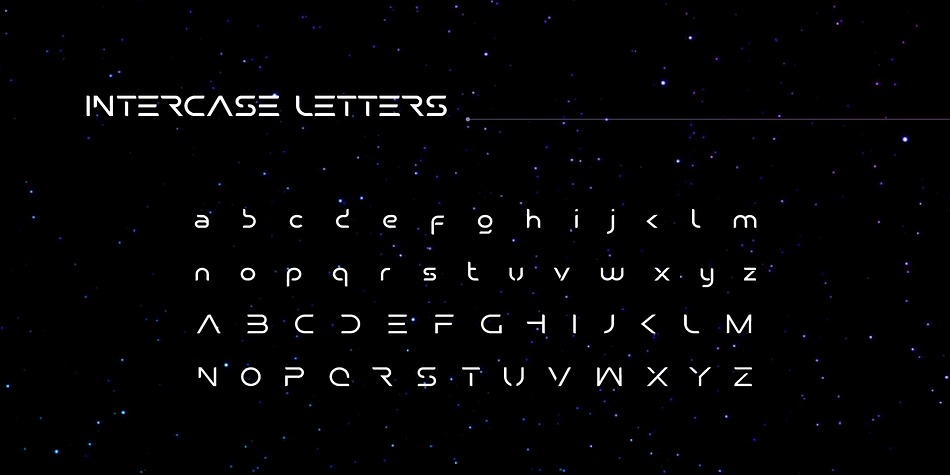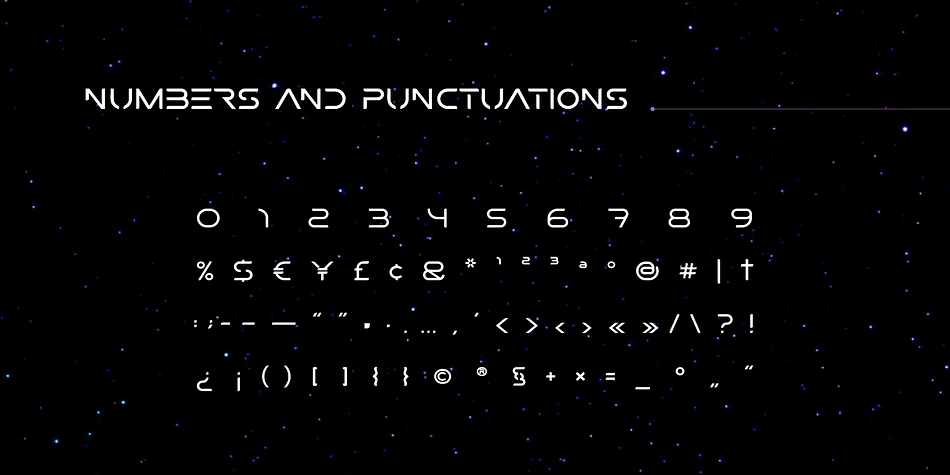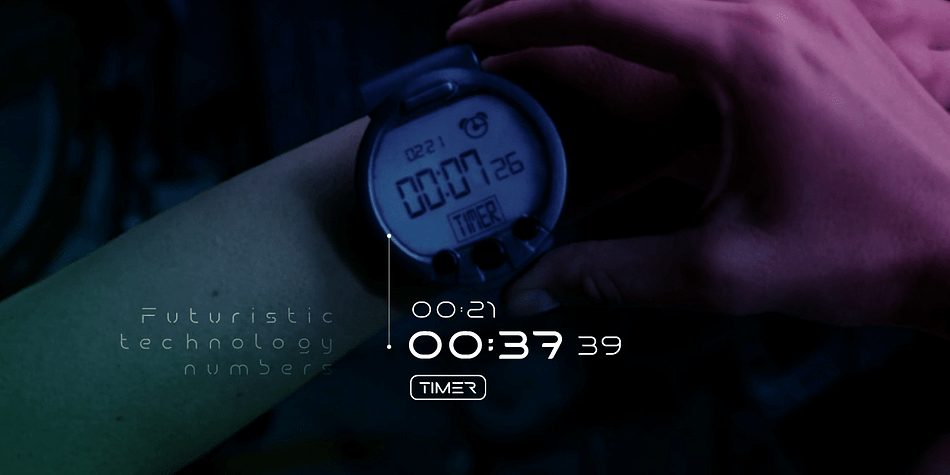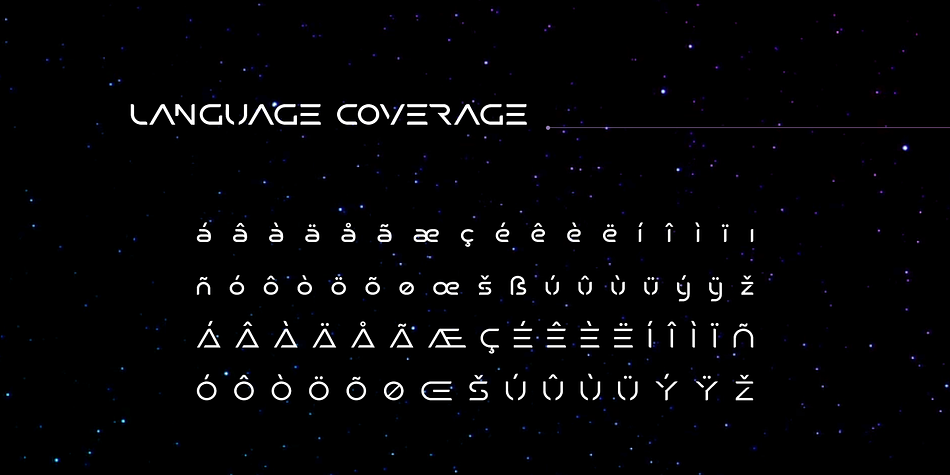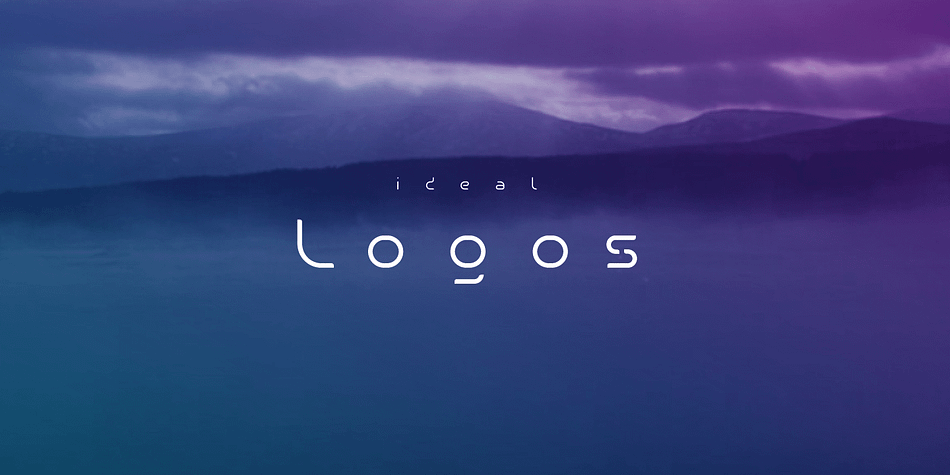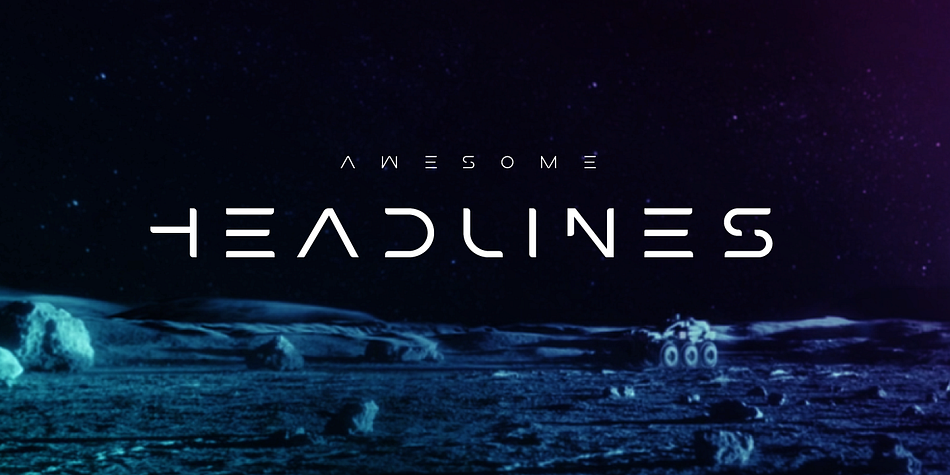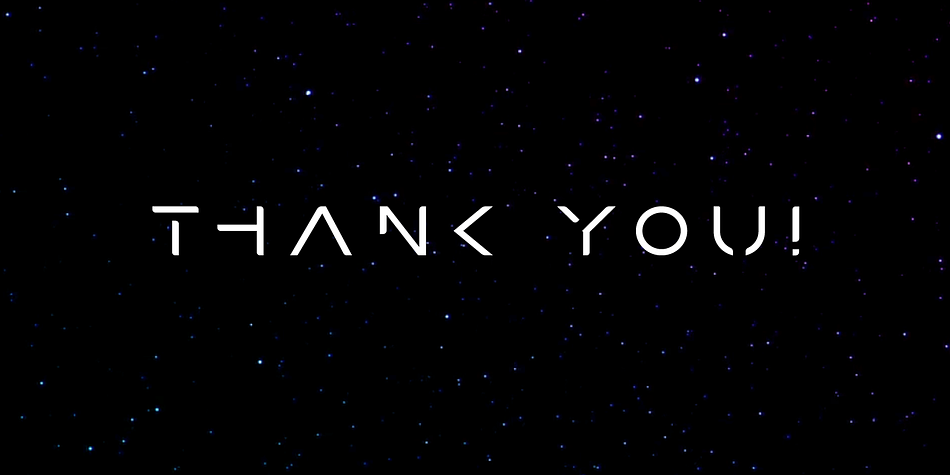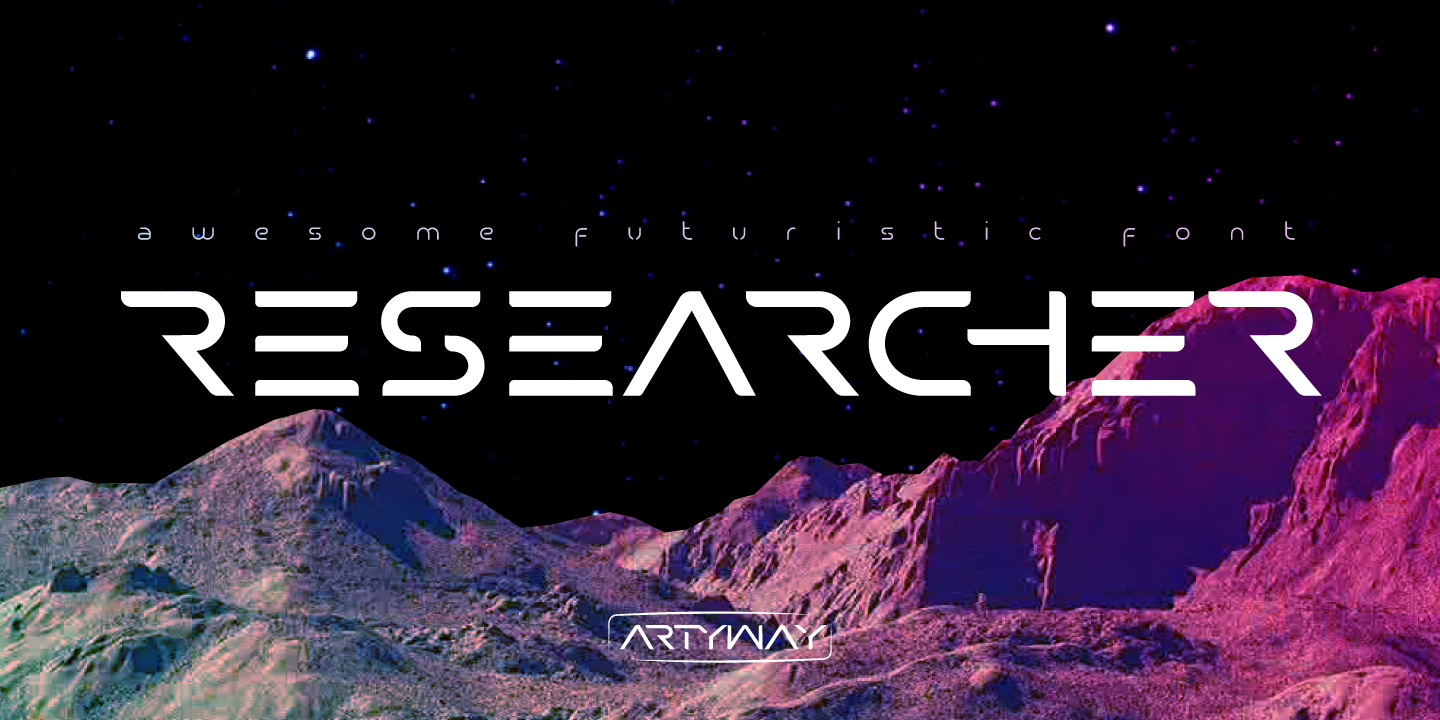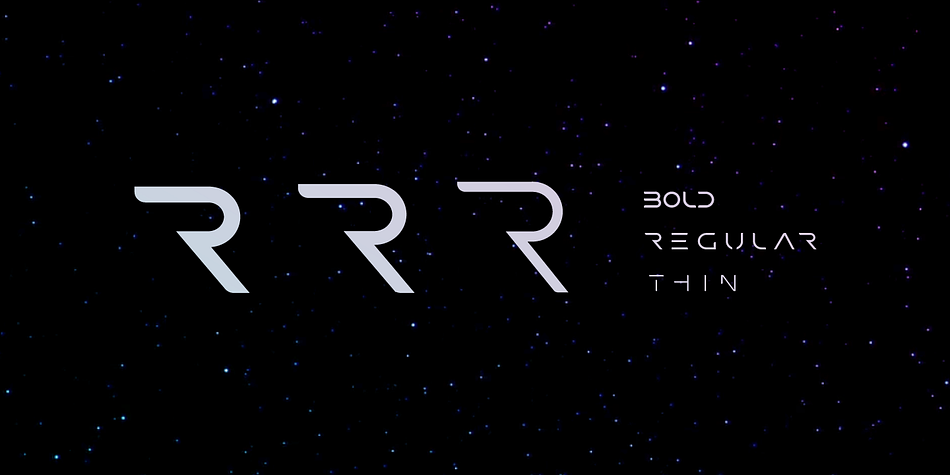
Researcher
Designed by Yehor Lisnyi, Researcher is a display sans font family. This typeface has four styles and was published by Artyway.
The Researcher is a futuristic font it an eye-popping aesthetic, inspired by sci-fi and future style. Suitable for all kinds of projects: from posters, web design, branding, to movie titles, badges, and especially logotypes and headlines.
The Researcher is a bold and amazing futuristic font with beautifully sleek shapes in 3 weights: thin, regular, and bold. Includes uppercase and lowercase letters, numbers and punctuations, alternate symbols, and language coverage.
Added New Squid style with alternate symbols, check it!